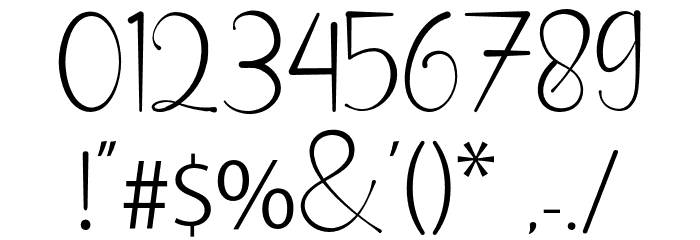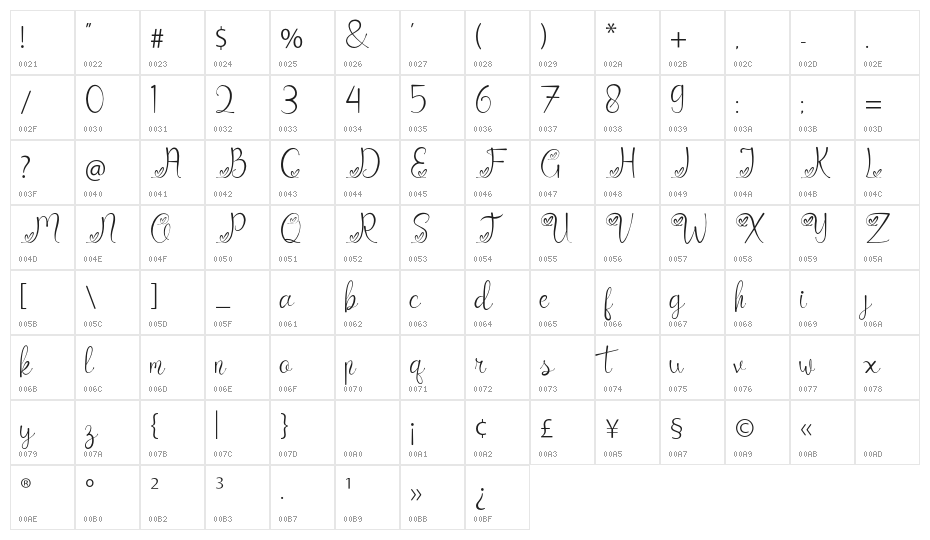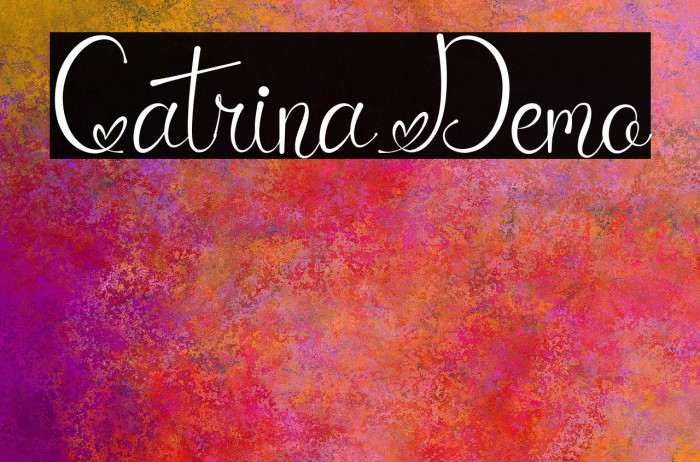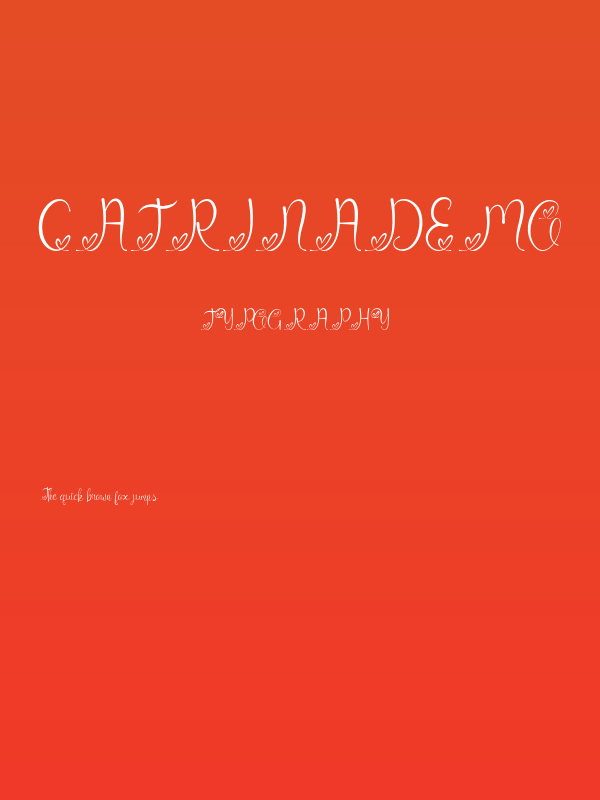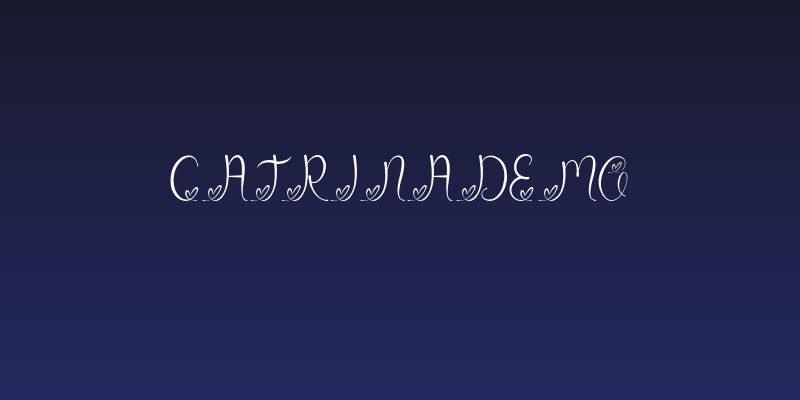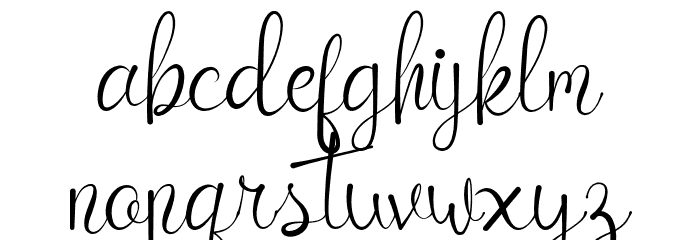
CatrinaDemo Font
CatrinaDemo Description
This font features a whimsical and playful design, characterized by its decorative elements and flowing script style. The uppercase letters are adorned with heart motifs, adding a touch of elegance and charm. The lowercase letters maintain a smooth, cursive flow, enhancing the overall graceful appearance. The numerals are clear and legible, maintaining the playful essence of the font. Special characters are creatively integrated, ensuring consistency with the font's unique style. This font is ideal for projects that require a touch of personality and creativity, such as invitations, greeting cards, and decorative headings.
| Use Case | Headlines, Decorative text, Invitations |
| Proposed Projects | Ideal for invitations, greeting cards, decorative headings, and playful branding. |